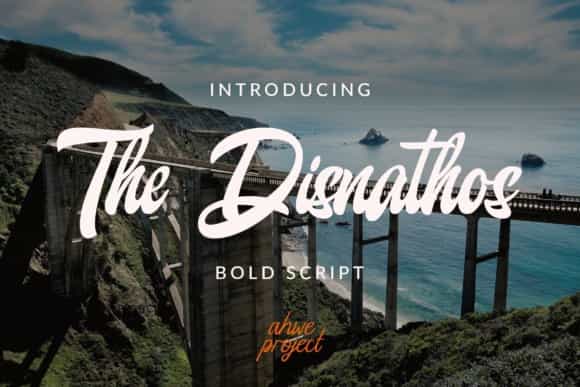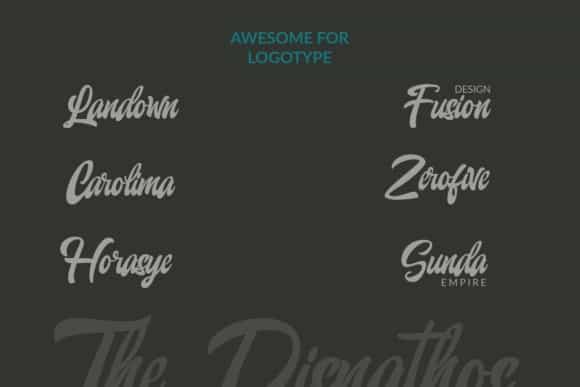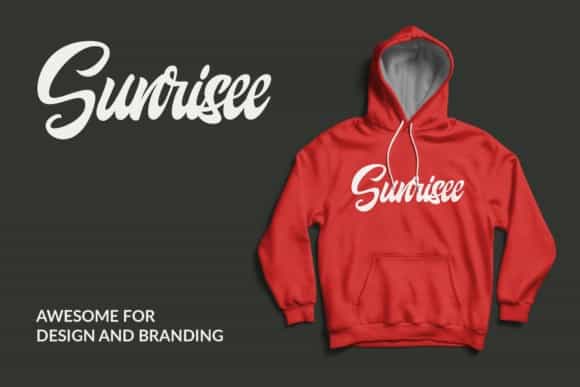
There are so many script fonts – but The Disnathos is not just another one, it is your go-to modern handwriting font. The Disnathos is a very realistic lettering system that produces letters and sentences in the most natural way. This was achieved by writing out hundreds of individual words, then hand-picking the most natural looking letters to make them look as real as possible.